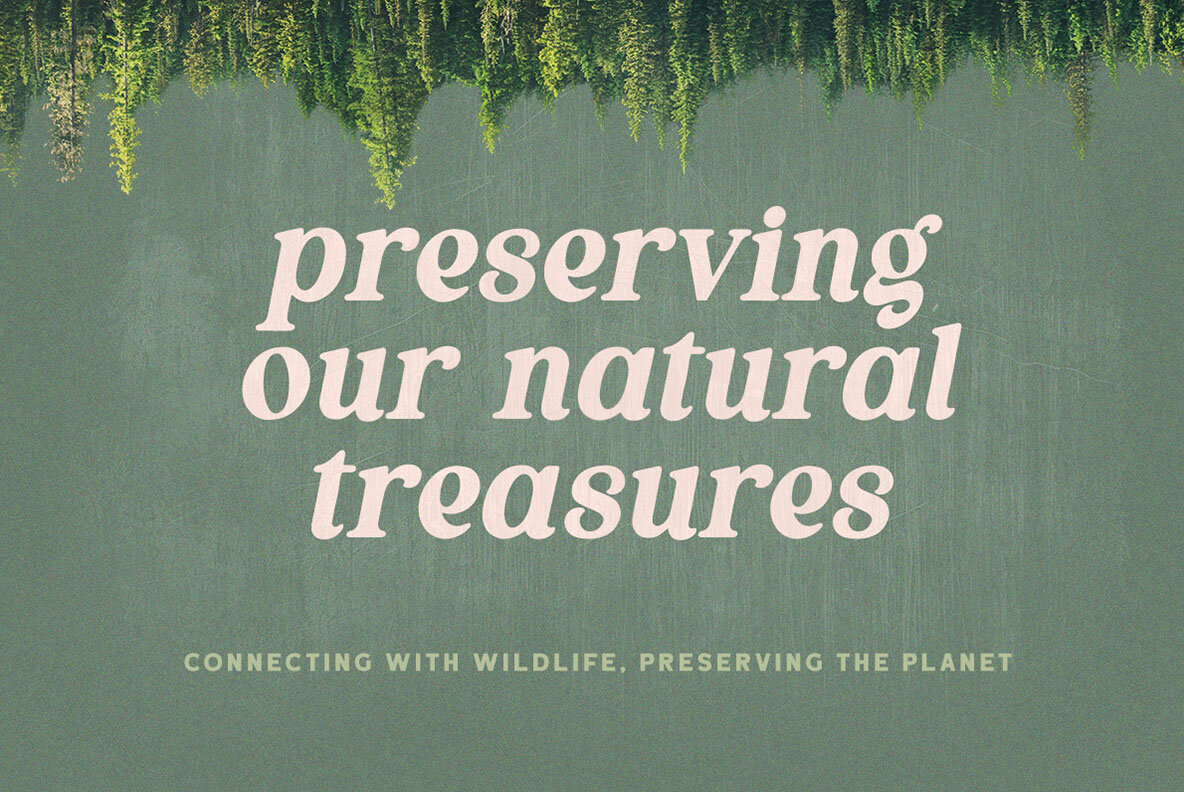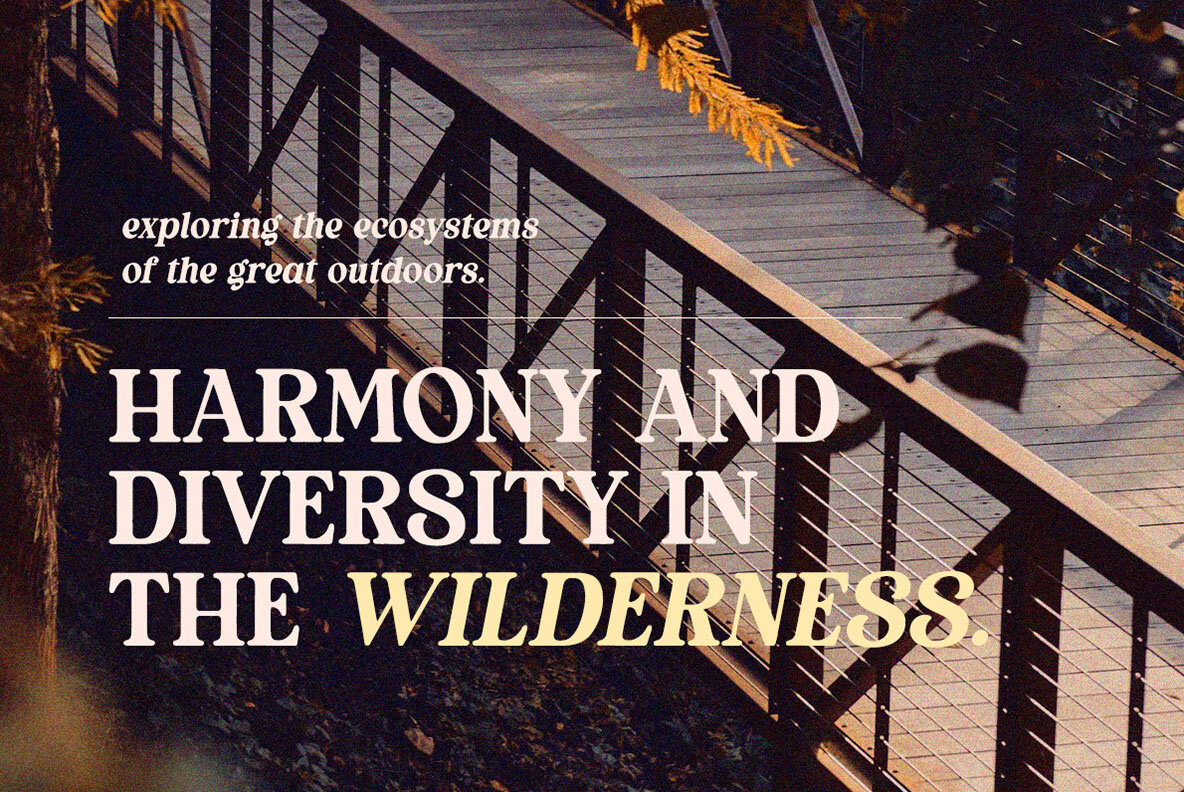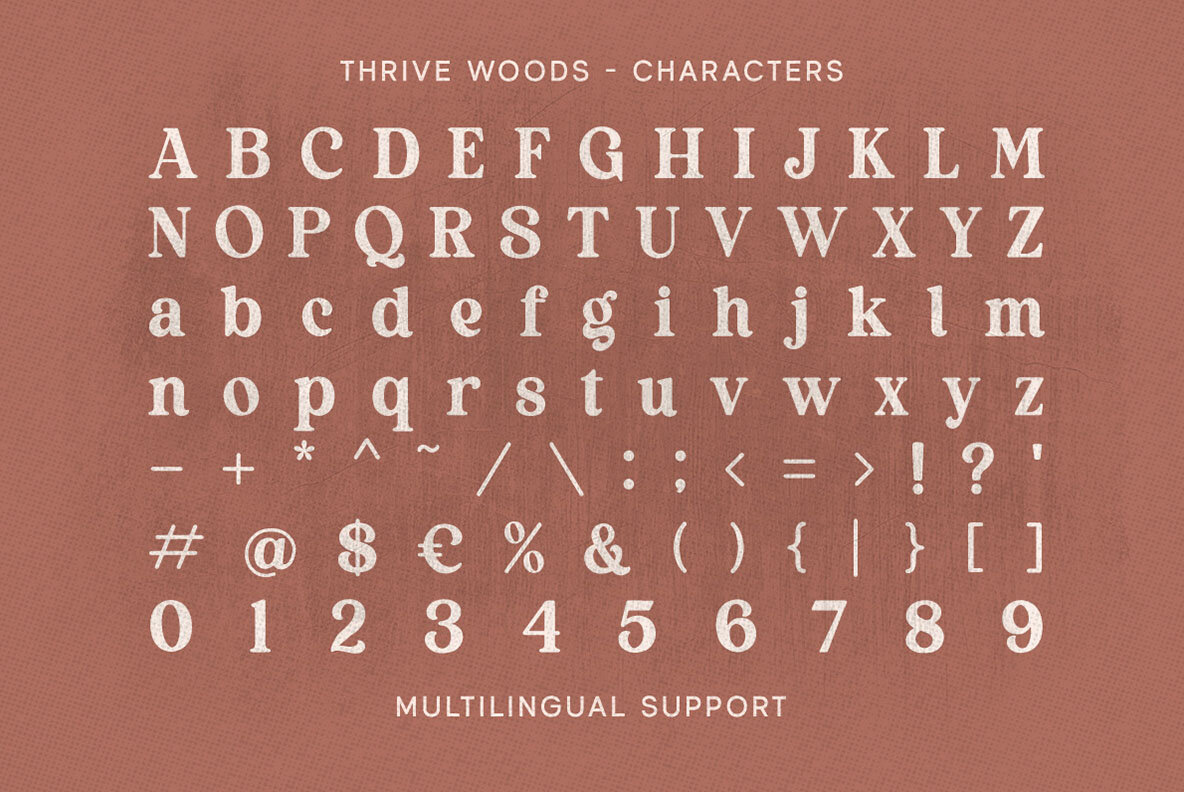
Thrive Woods Font
Thrive Woods is an elegant serif font featuring a unique, organic style. Ideal for logos and a variety of formal applications, it enhances designs for invitations, labels, magazines, books, greeting cards, wedding cards, packaging, fashion, and stationery, as well as for novels and advertising materials. For the best experience, use a program that supports OpenType features and Glyphs panels, such as Adobe applications or Corel Draw, to access all glyph variations.Thrive Woods: Organic Serif with Style